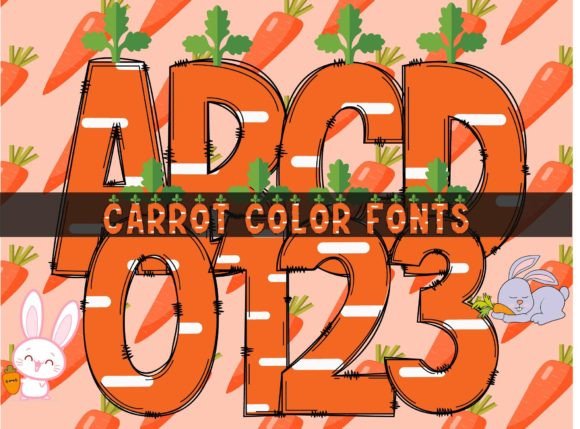
Introducing Carrot Font, the ultimate font for those who want to make a statement! Created by Color Alphabet, this bold and attractive font is perfect for anyone looking to add a touch of vibrancy to their designs. With its wide range of vibrant colors, Carrot Font is guaranteed to energize your creations and capture the attention of your audience.
Whether you're creating attention-grabbing headlines, eye-catching logos, or engaging social media graphics, Carrot Font is the go-to choice. Its bold and playful appearance will instantly captivate your viewers, leaving a lasting impression that is hard to forget.
But what sets Carrot Font apart from other fonts? It's all about the unique and fun colored style that it brings to the table. Say goodbye to boring black and white fonts and embrace the world of vibrant hues! With Carrot Font, you have the power to infuse your designs with personality, creativity, and an irresistible charm.
Imagine the impact of a bold statement in a vibrant shade of red or a playful twist in a sunny yellow. Carrot Font allows you to experiment with different colors, giving you the freedom to express your creativity and make your designs truly stand out. Your audience won't be able to resist the allure of these captivating colors!
Not only does Carrot Font offer a visually appealing experience, but it also caters to the needs of e-commerce businesses and individuals alike. Its versatility makes it suitable for a wide range of applications, from product descriptions to promotional banners. Let Carrot Font be your secret weapon in attracting customers and increasing conversions.